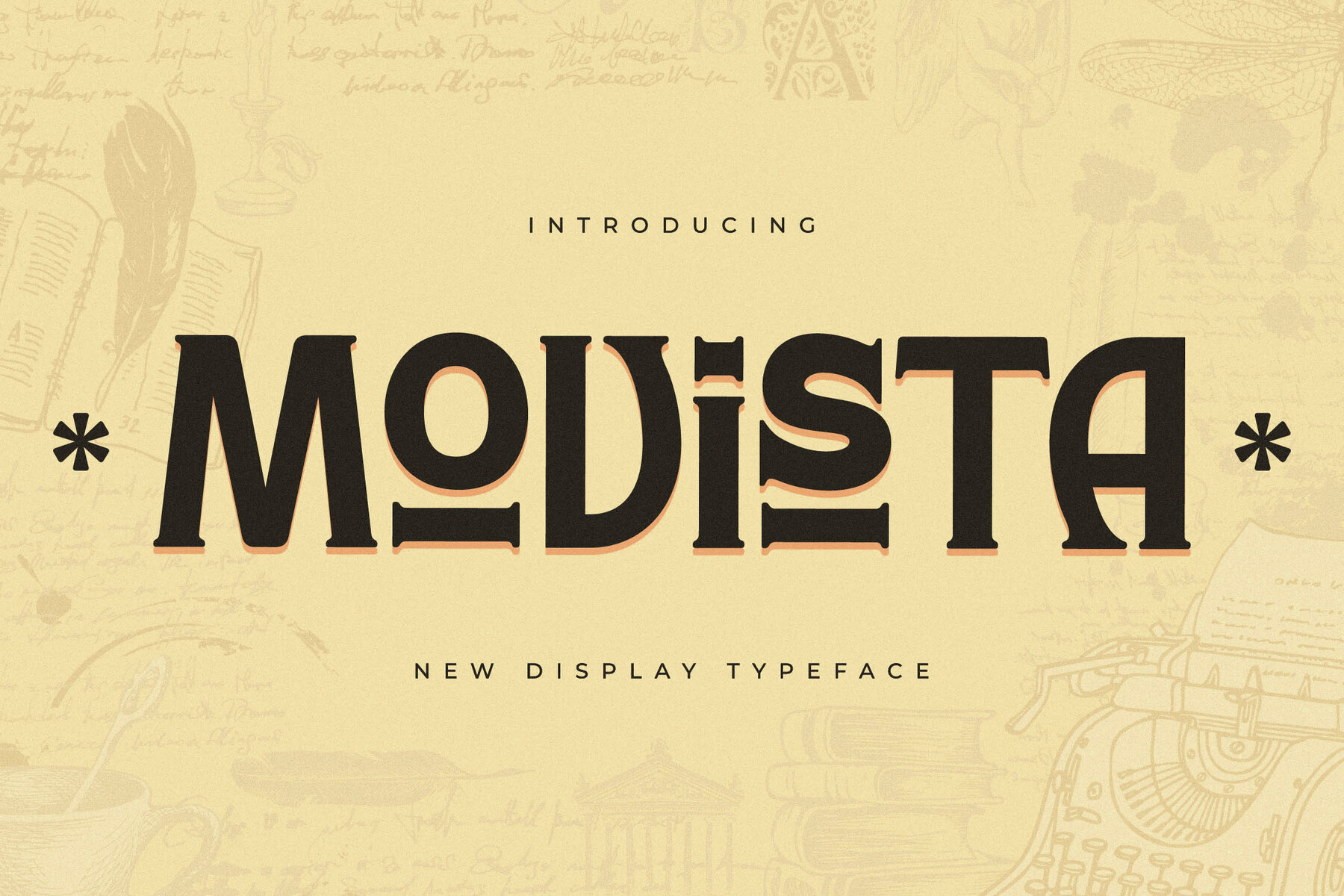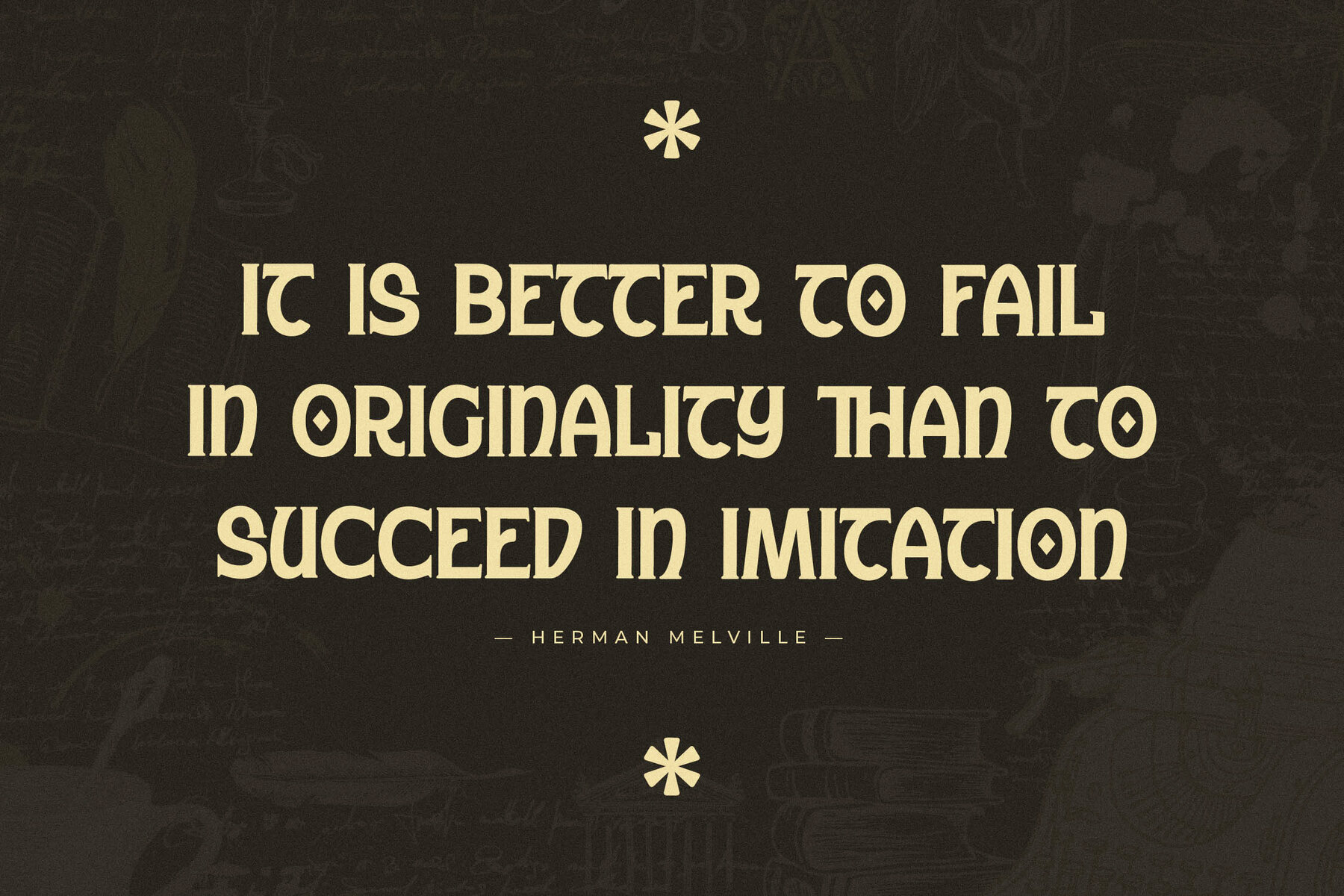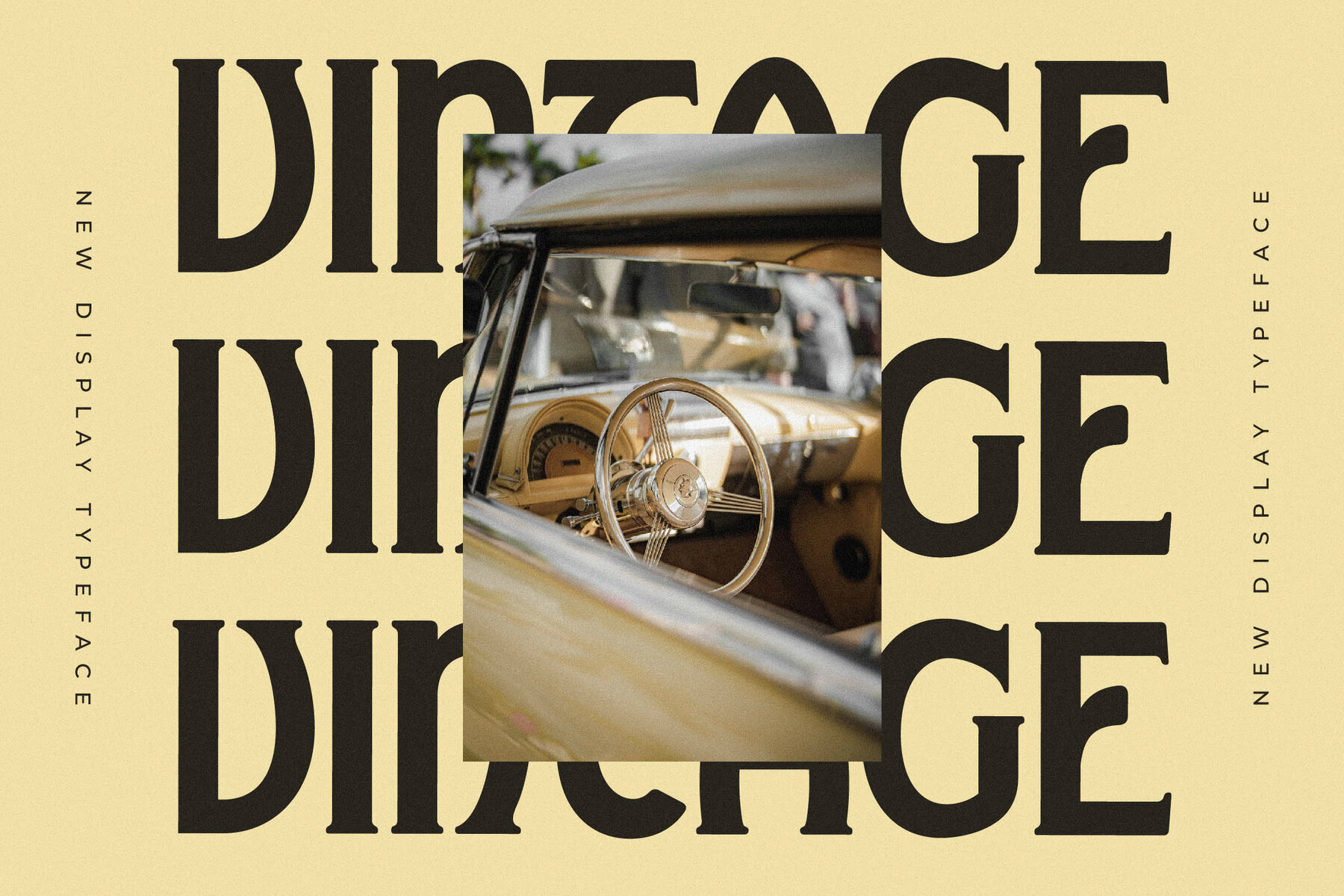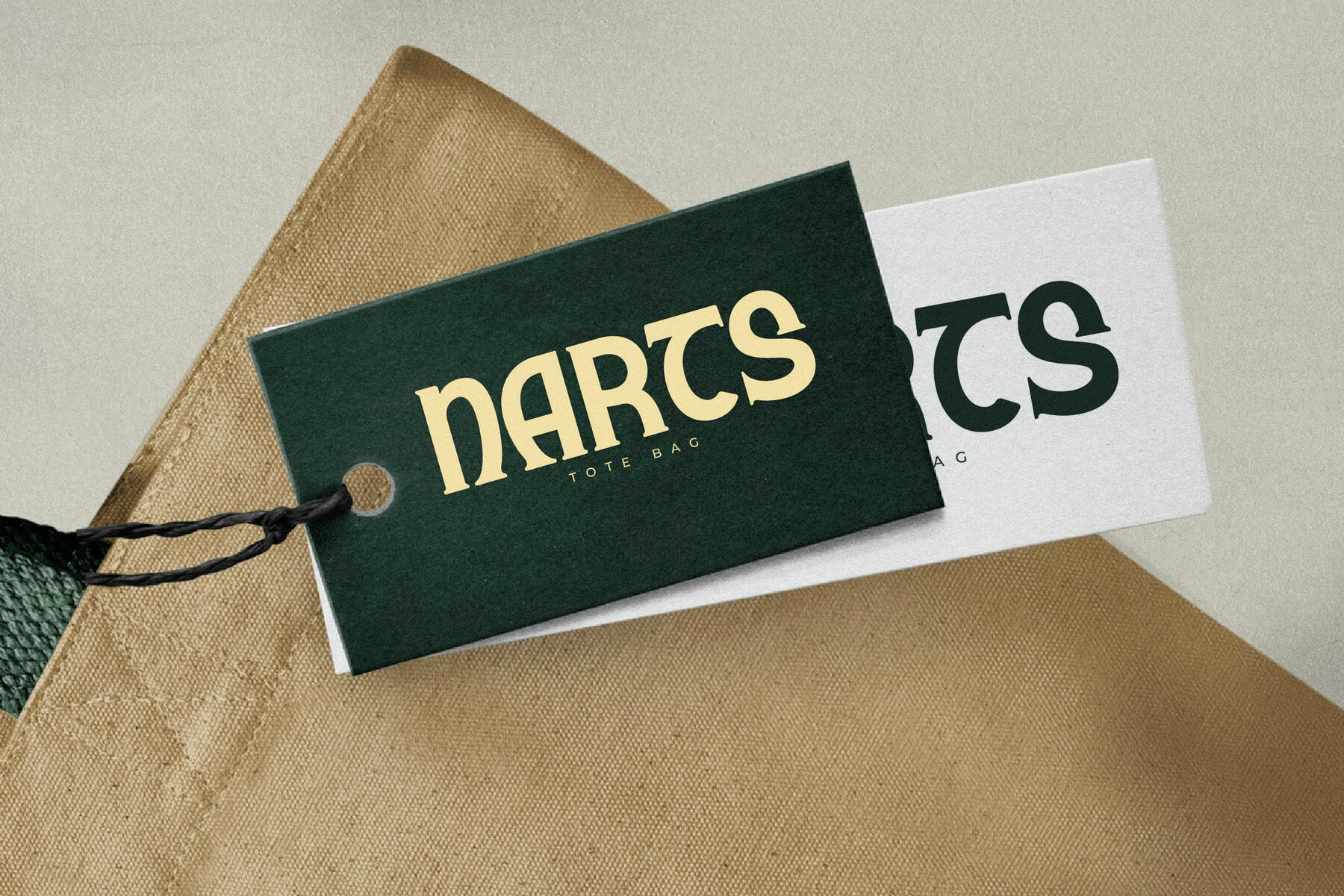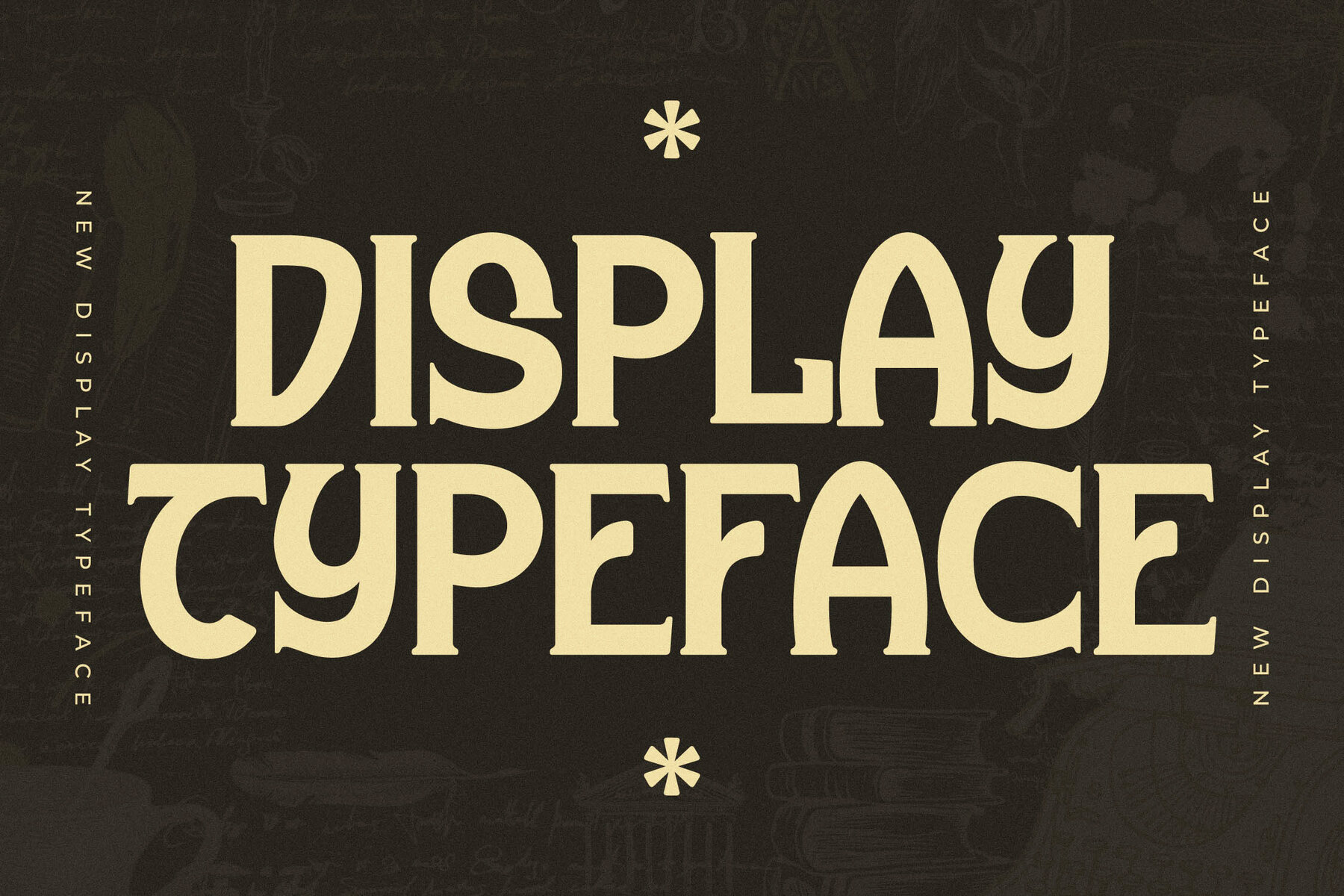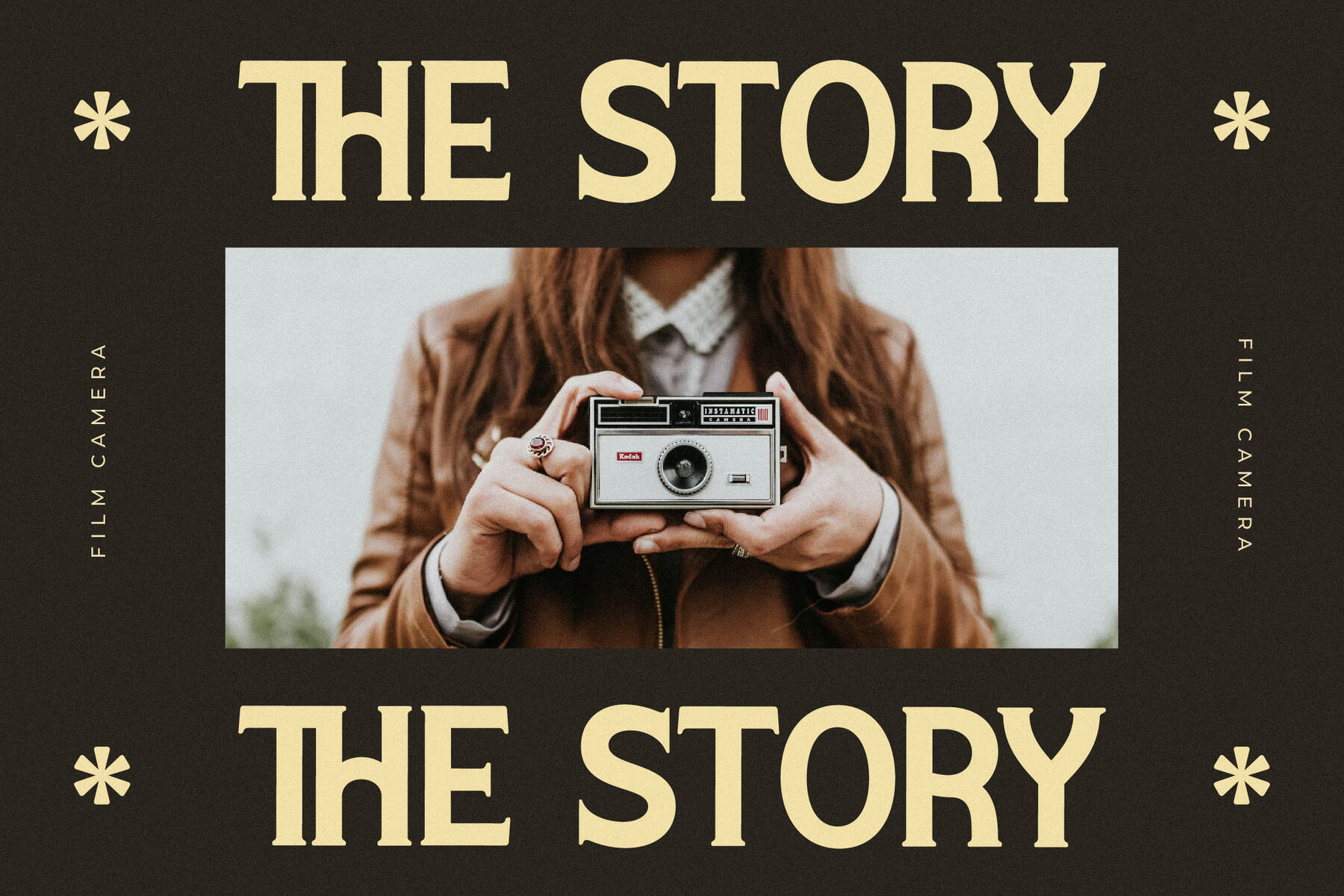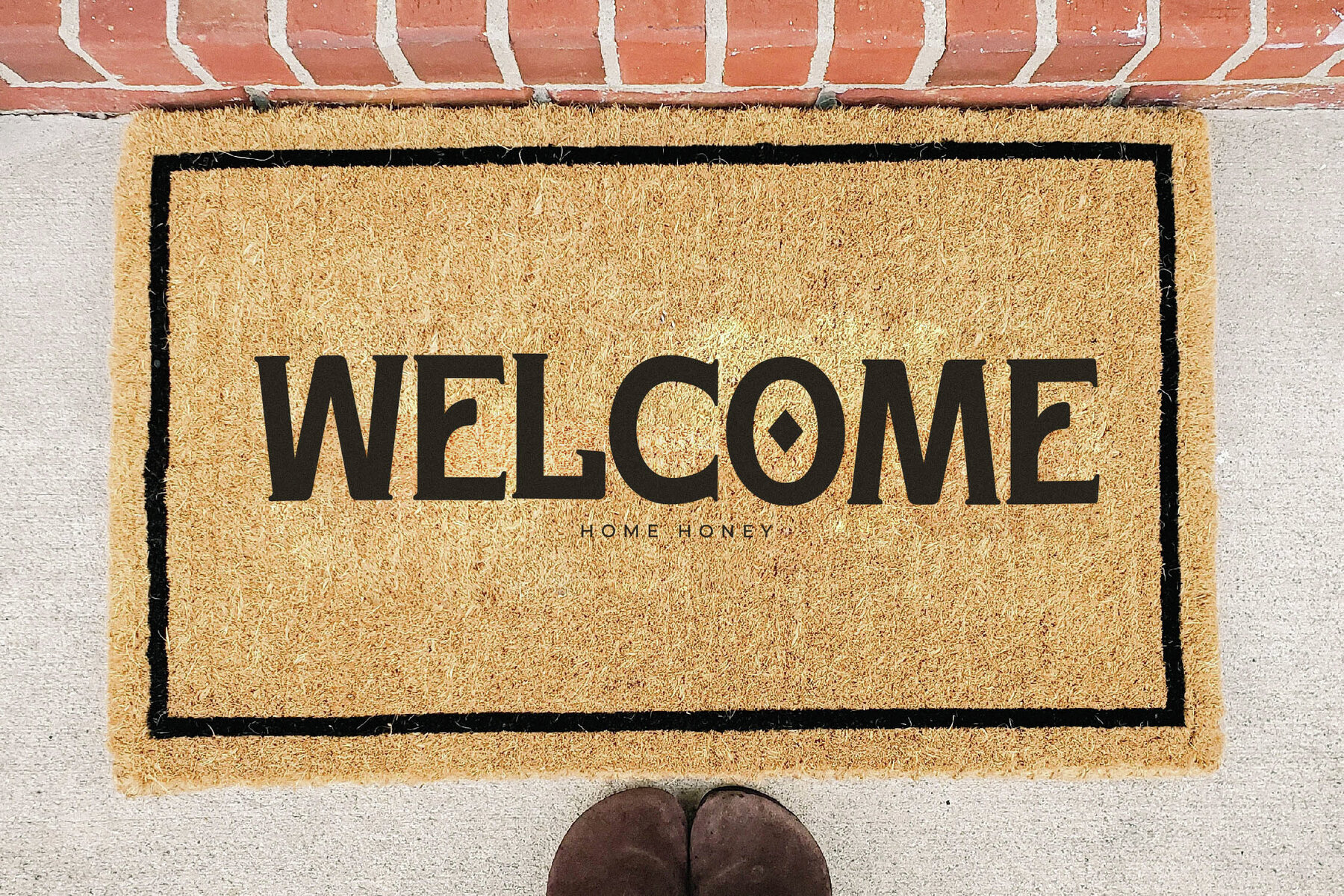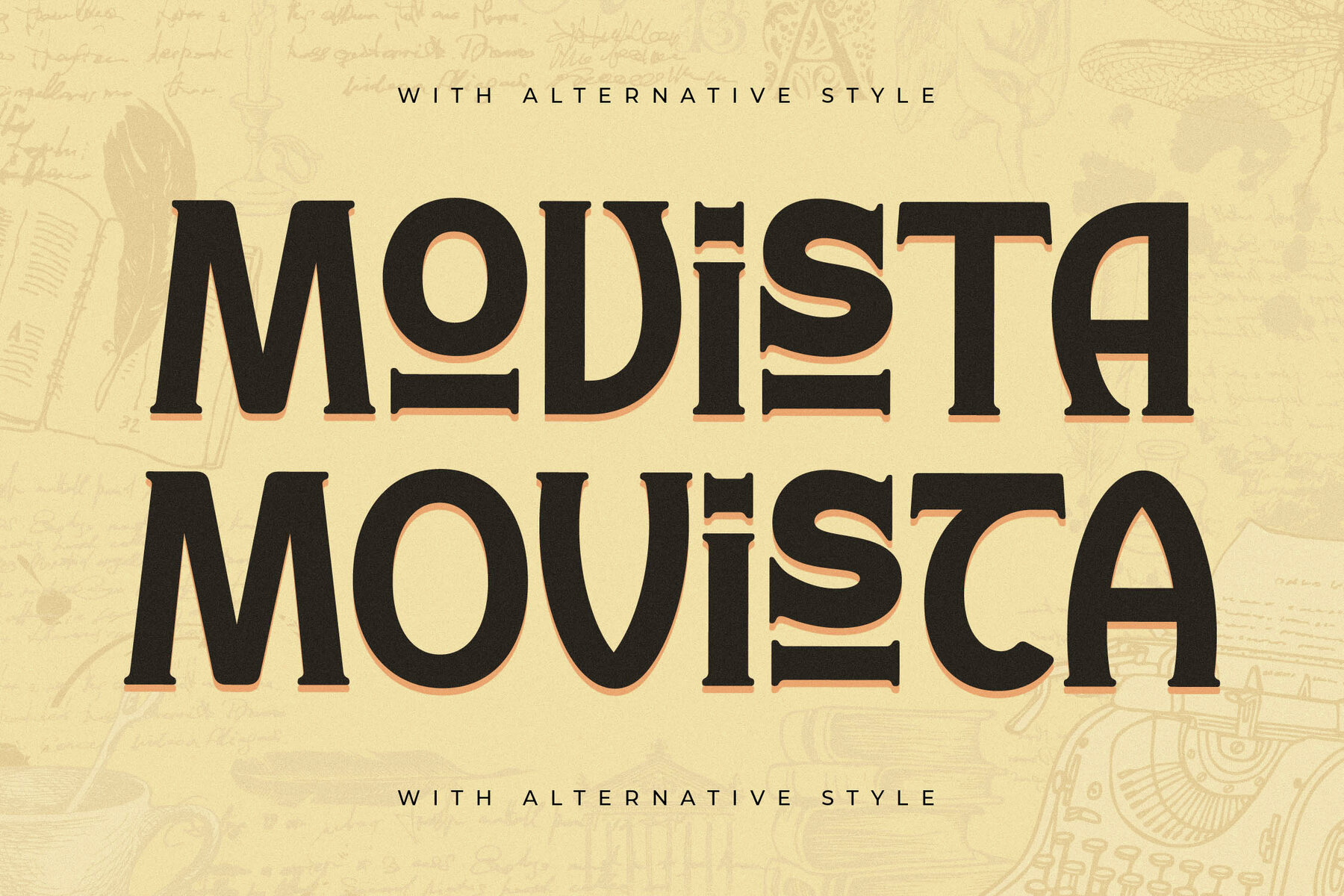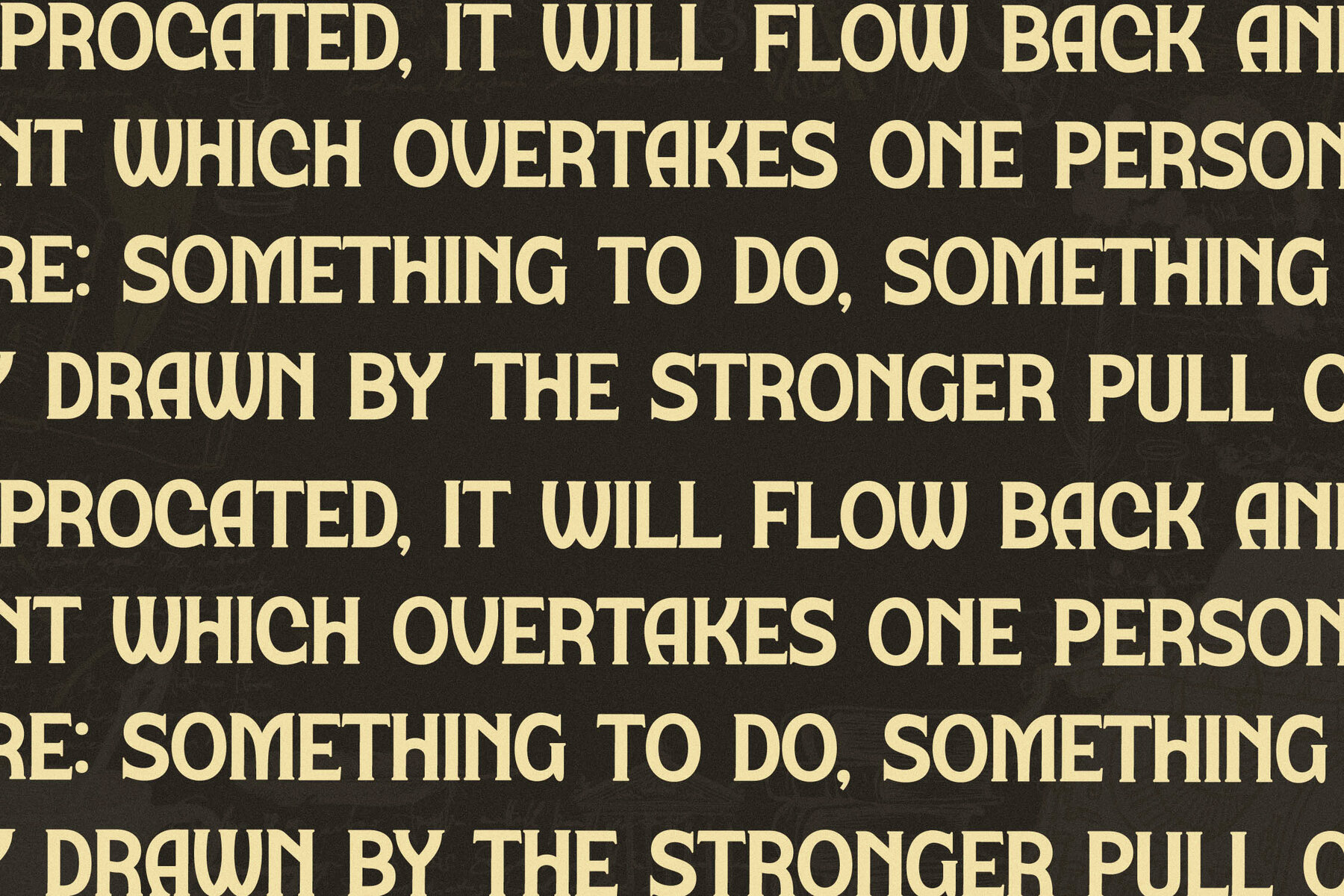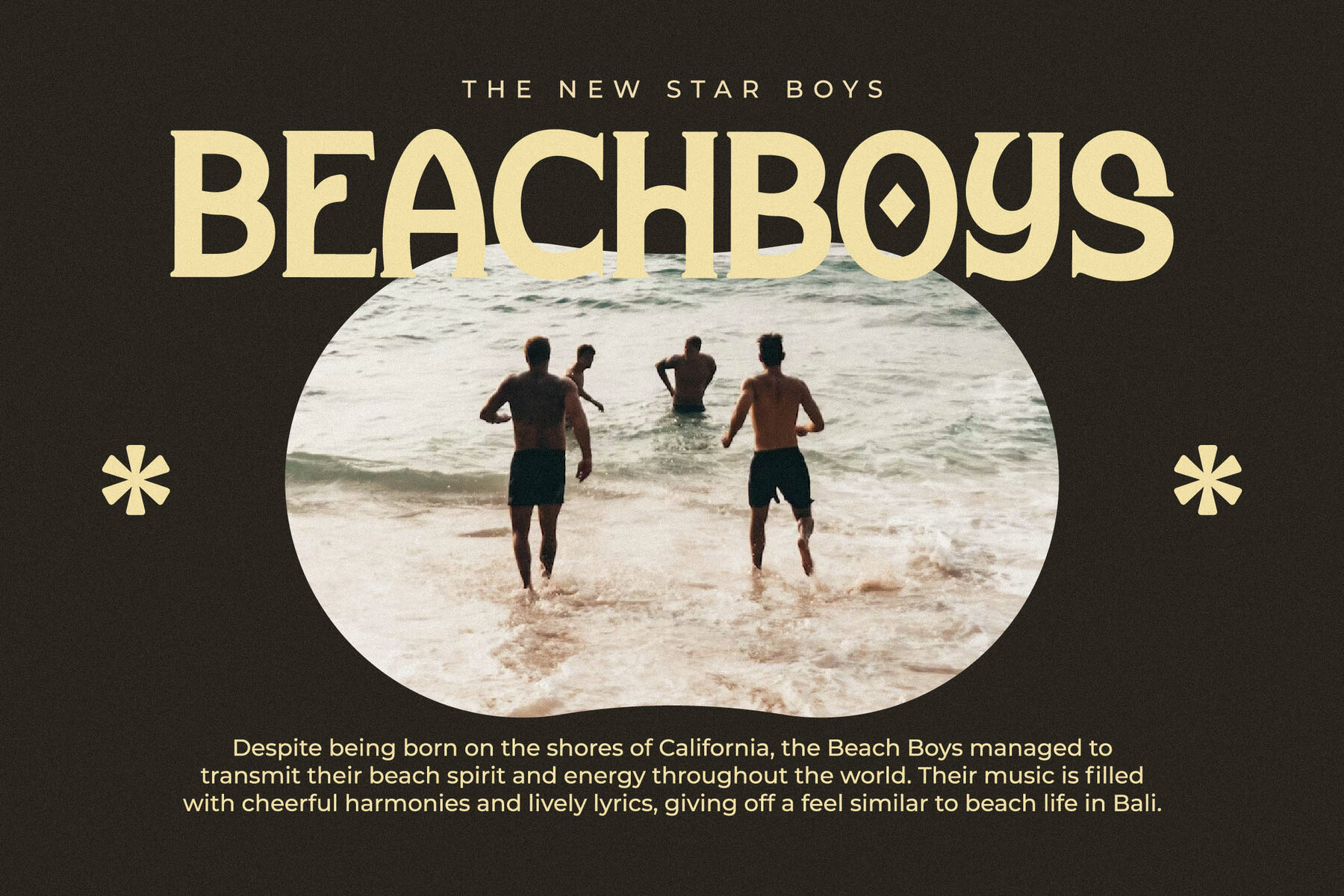
Movista Font
Movista Typeface stands as a distinct creation by Storytype, distinguishing itself with a unique blend of modernity and classic serif elegance. This typeface is an excellent choice for designers looking to impart sophistication to logos, book titles, fashion brands, and much more. Features:Movista Typeface: Elegant Serif with Modern Appeal